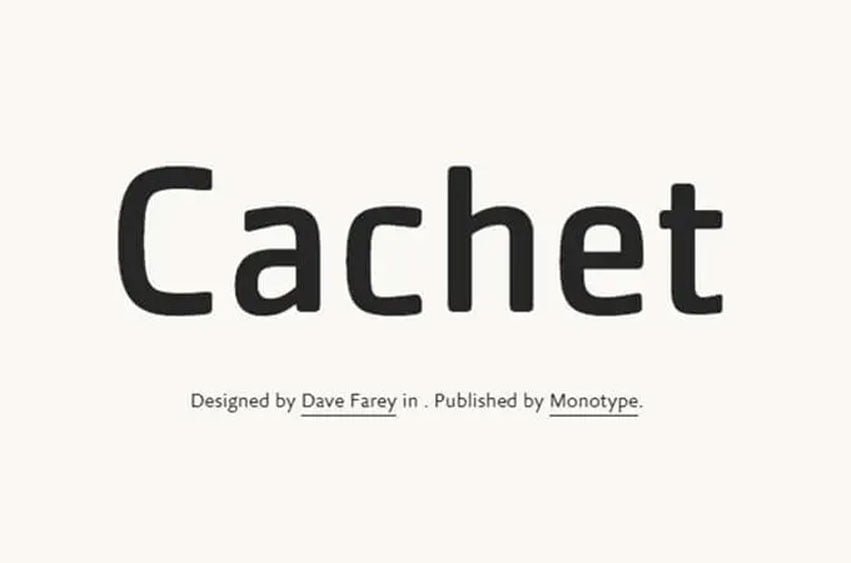
Cachet Font is a display sans-serif font that has an elegant bold texture. Mr. Dave Farey took charge of designing it and releasing it via Monotype during December 2001. Its texture has created with solid thick strokes just to give elegant look in design where it applies. It has monospaced, mono stroke font which strokes width suffers in terms of legibility.The main object behind is creation is to an illusion of monospacing which delivering a friendly manner typeface for designers. That can adjustable in every situation. When you notice its texture, then feel that its texture constructed of straight strokes with proper padding & space. That’s why you also feel this elegant font nearby to techno fonts.